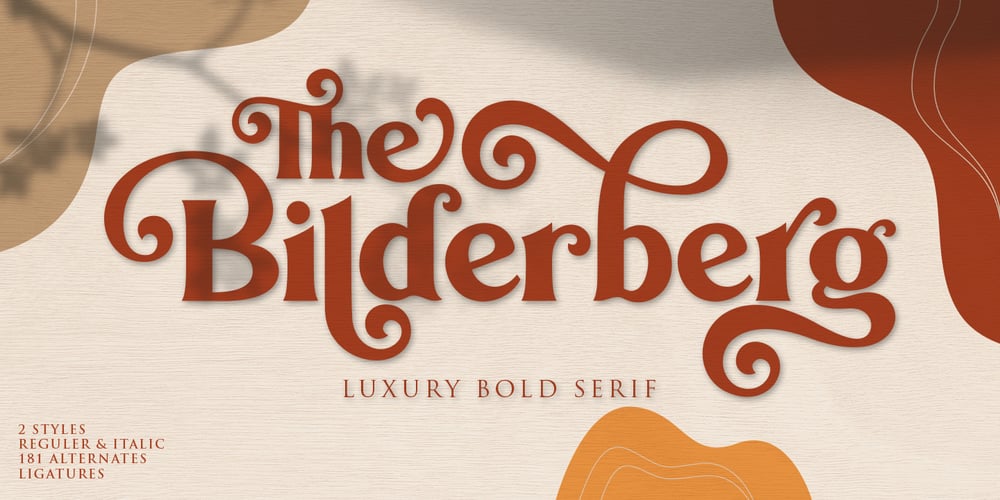
Bilderberg Font Family was designed by Rinto Dwi Nugroho and published by Almeera Studio. Bilderberg contains 2 styles and family package options. Bilderberg is a luxurious bold, serif, display typeface. It comes in 2 styles, Regular and Italic, and includes many alternates with swashes that can make your lettering / logotype become more interesting. The clean and neat of a serif combined with the swirl swashes makes this font very attractive.This font fits perfectly for logos and the other various formal forms such as invitations, labels, magazine headers, books, greeting/wedding cards, clothing, branding, product packaging, fashion, make up, quotes, stationery, novels, labels or any type of advertising purpose.Features : 2 styles (Regular and Italic) uppercase & lowercase numbers and punctuation multilingual ligatures stylistic alternates swashes PUA encoded We highly recommend using a program that supports OpenType features and Glyphs panels like many of Adobe apps and Corel Draw, so you can see and access all Glyph variations.How to Access Alternate Characters:Open glyphs panel:-In Adobe Photoshop go to Window – glyphs-In Adobe Illustrator go to Type – glyphsThanks & Happy designing